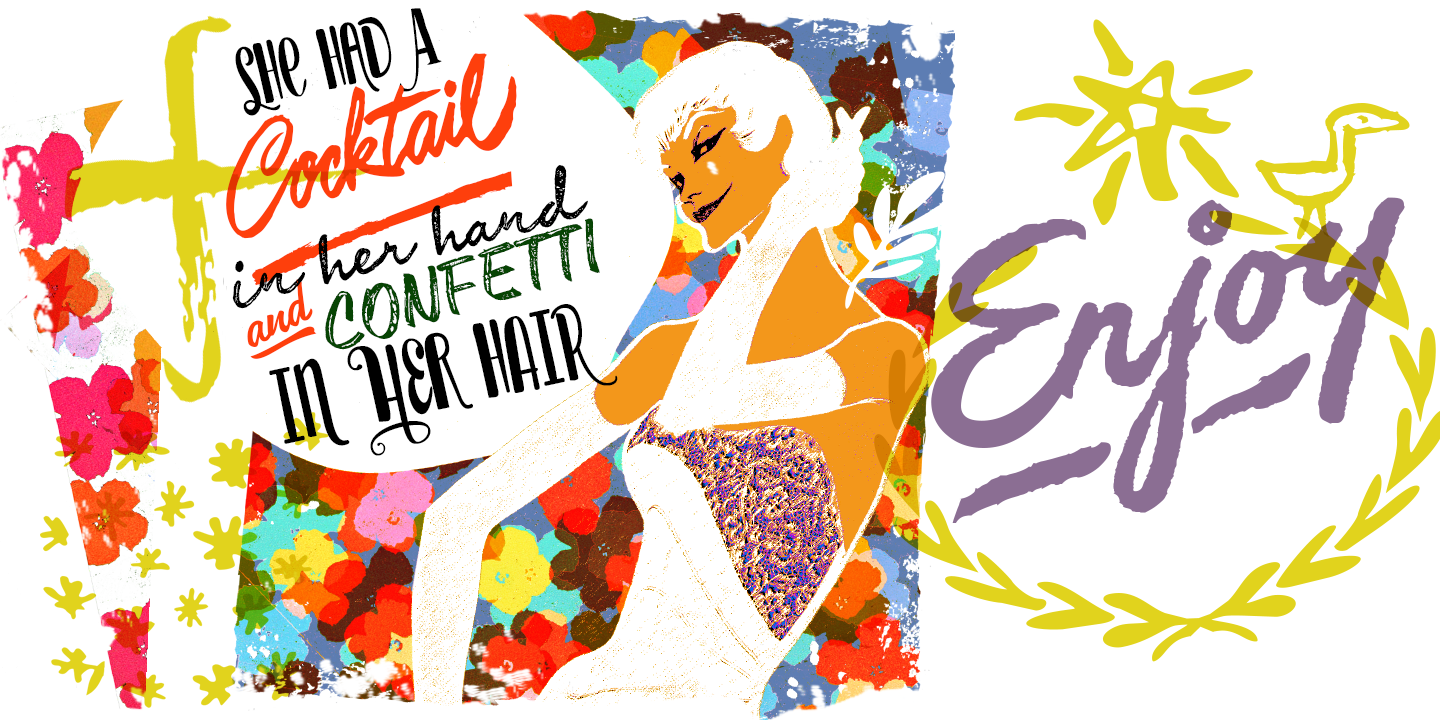
Enjoy Font is a delightful and playful typeface that brings an immediate sense of fun, friendliness, and creativity to any design project. Its charming and whimsical style makes it an excellent choice for a wide variety of applications where a lighthearted and engaging tone is desired. Imagine it gracing children's book covers, vibrant social media graphics, cheerful event invitations, playful branding for toys or snacks, inspiring classroom materials, or unique personalized gifts. This font excels at conveying joy and approachability, ensuring your message is not only clear but also leaves a warm and memorable impression. It’s particularly effective for projects that aim to evoke happiness and spark imagination.
What makes Enjoy Font truly exciting is its ability to infuse designs with an infectious sense of optimism and casual charm. It often features quirky details or a slightly irregular, handcrafted feel that gives each character a unique personality. This helps create an immediate emotional connection with your audience, making your content feel more relatable and less formal. It’s a font that doesn't just display text; it smiles at you, offering a refreshing departure from more rigid typefaces and breathing genuine character into your creative endeavors. Enjoy Font is a powerful tool for brands and creatives who want to project an image that is inviting, vibrant, and full of positive energy.
The Enjoy Font family often offers various options to enhance its expressive capabilities. You'll typically find it available in a strong, playful regular weight that best showcases its unique design elements. Some versions might include stylistic alternatives for certain characters, ligatures, or even a set of dingbats that further emphasize its whimsical appeal and allow for more customized typographic compositions. The comprehensive character set generally covers standard Latin characters, numbers, and a selection of punctuation marks, ensuring that Enjoy Font Free Download is suitable for a wide variety of creative and commercial applications. Its distinctive and memorable presence ensures that any project featuring Enjoy Font will leave a lasting and impactful impression.